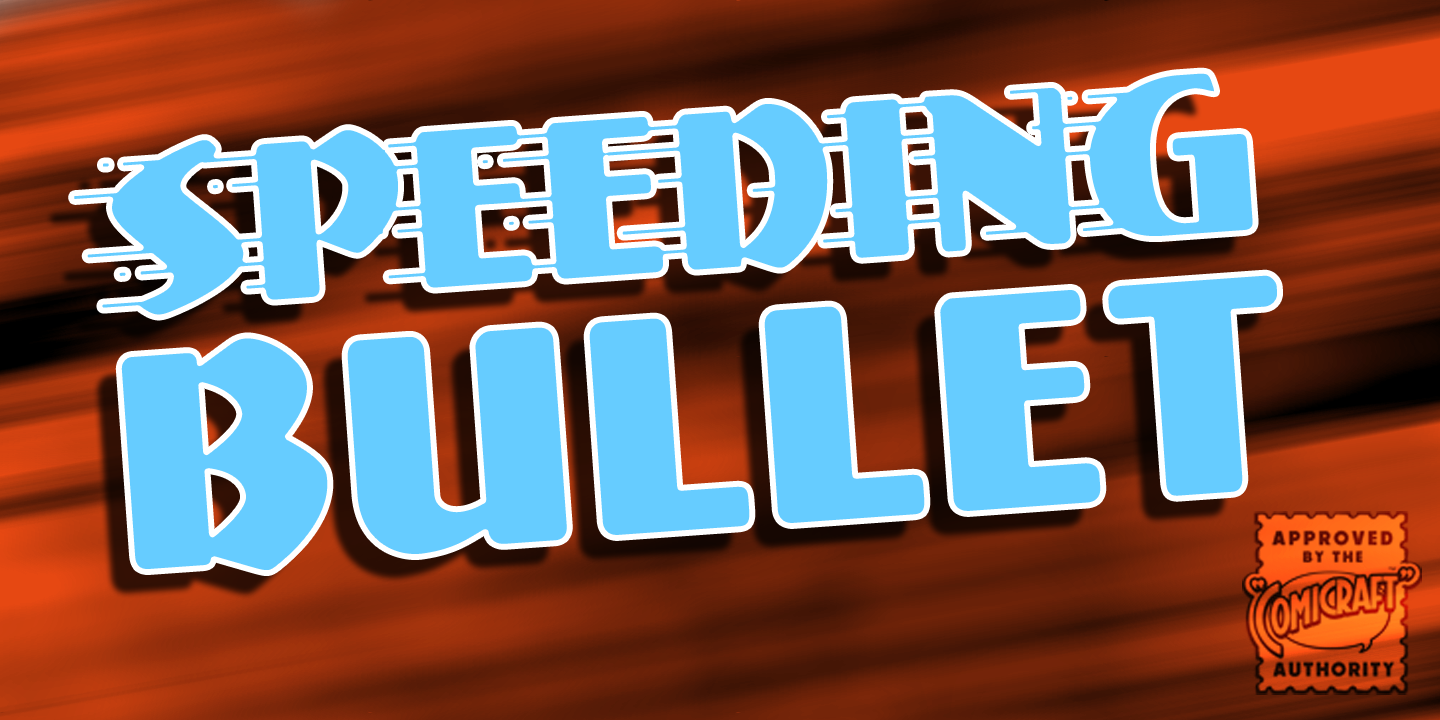
About the Speeding Bullet Font
About Speeding Bullet Font Family Introducing… SPEEDING BULLET — featuring SPEED TRAILS for increasing the, ah, speed of your bullets!Quick as The Flash, slicker than Quicksilver, the latest in our popular line of silver age display fonts could probably outrun a locomotive AND jump buildings in a single bound. It’s ASTOUNDING, it’s STARTLING, it’s ELECTRIFYING, PERAMBULATING, DISCOMBOBULATING and RETROFITTING.
Speeding Bullet Font
It really is Faster than a Speeding Bullet.Try it out for yourself. Under adult supervision, natch’. Designers: John RoshellPublisher: ComicraftFoundry: ComicraftDesign Owner: ComicraftMyFonts debut: Jun 4, 2006 Speeding Bullet